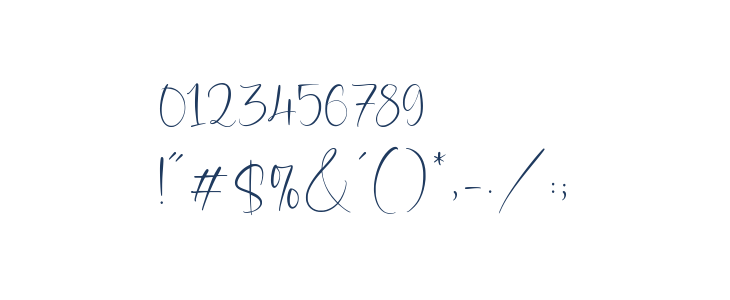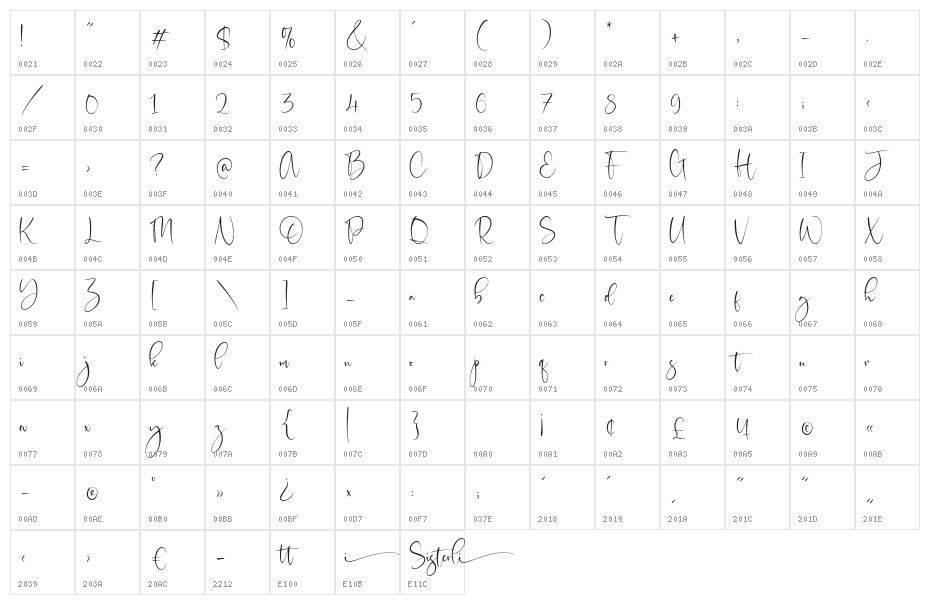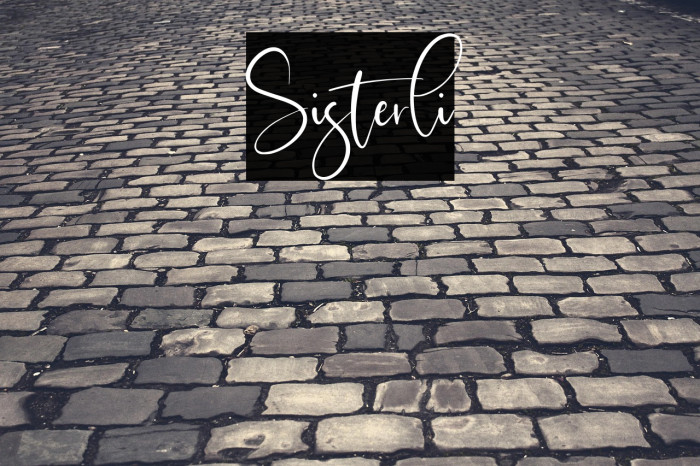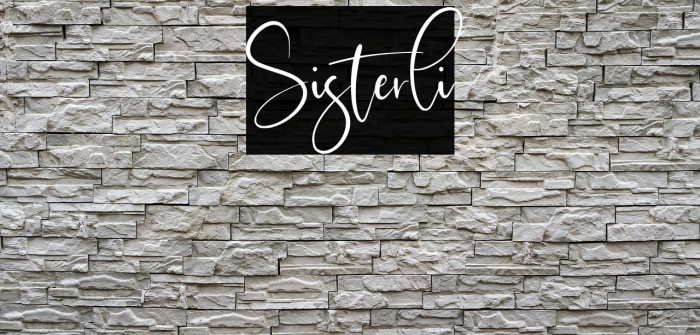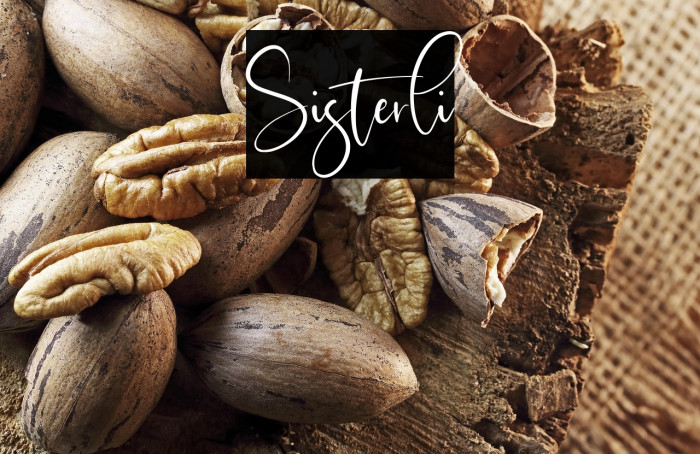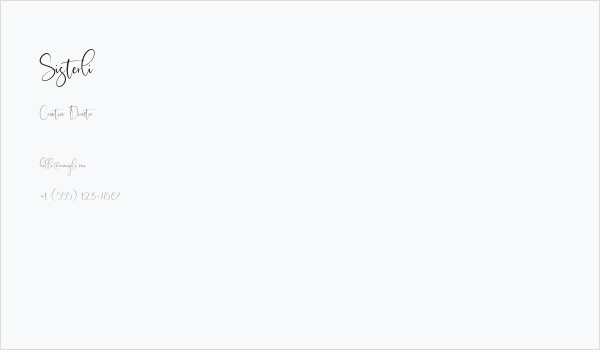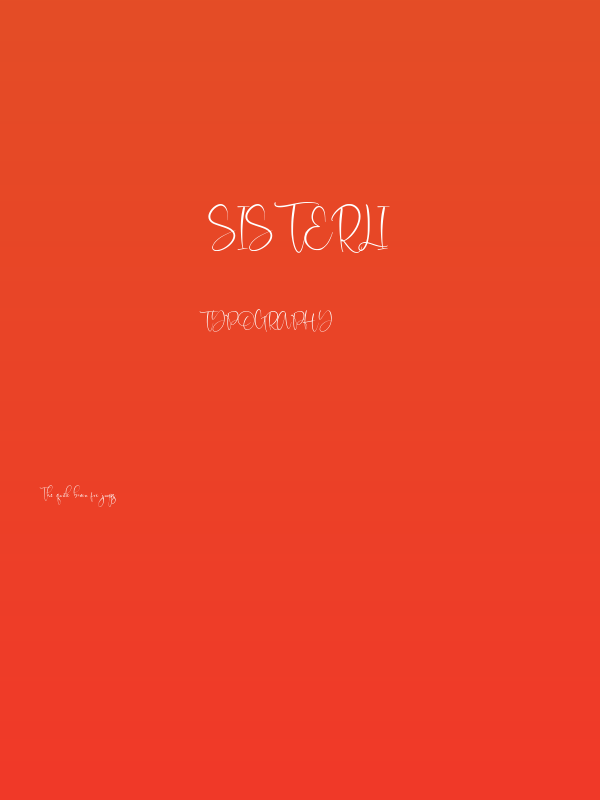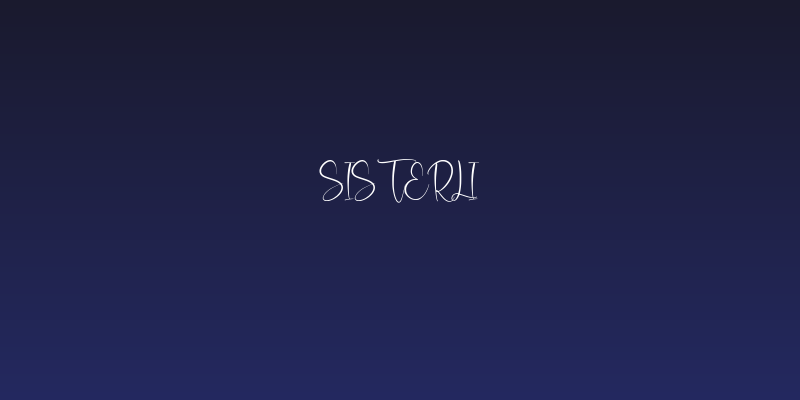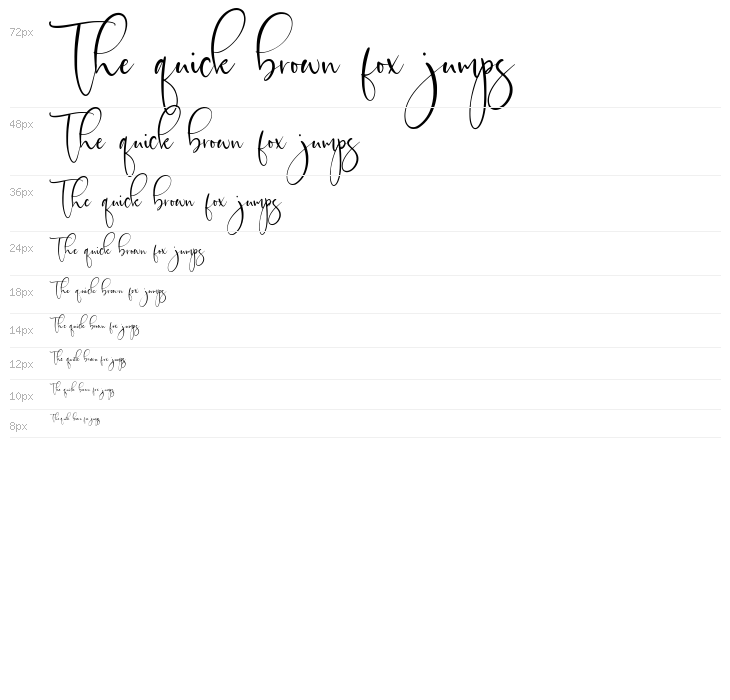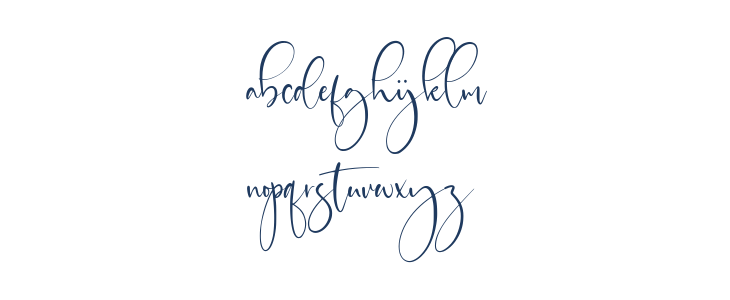
Sisterli Font
Sisterli Description
This font features a flowing, cursive style with elegant loops and swirls, giving it a sophisticated and artistic appearance. The uppercase letters are tall and graceful, with a slight slant that adds to their dynamic look. Lowercase letters are equally ornate, with intricate connections between characters that create a seamless flow. The numerals maintain the same decorative style, ensuring consistency across all characters. Special characters are designed with the same attention to detail, making them suitable for creative and expressive typography projects.